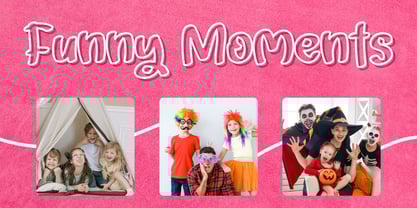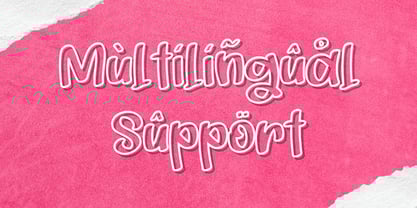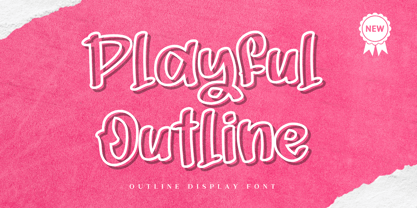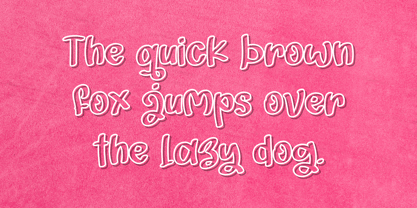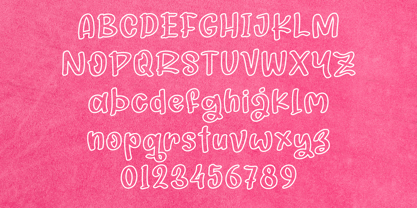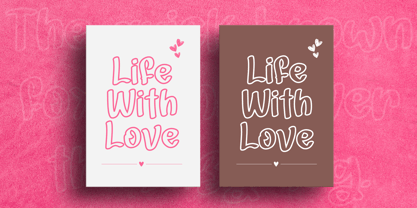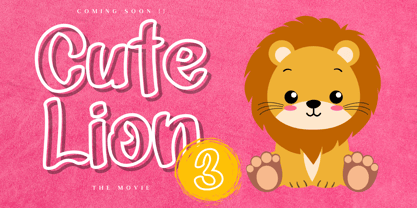
Playful Outline
by Letterafandi Studio
The Playful Outline Font Family was designed by Ahmad Afandi and published by Letterafandi Studio. Playful Outline contains 1 styles. More about this family
Introducing "Playful Outline", a delightful and spirited outline typeface that brings a distinctive and inventive twist to any design project. Exceptionally suited to give your work a unique, quirky edge, this font cleverly intertwines an element of fun with a tastefully outlined aesthetic. Its vibrant charm will surely make your designs pop with originality and intrigue, captivating your audience with an unconventional design dynamic.
Designers: Ahmad Afandi
Foundry: Letterafandi Studio